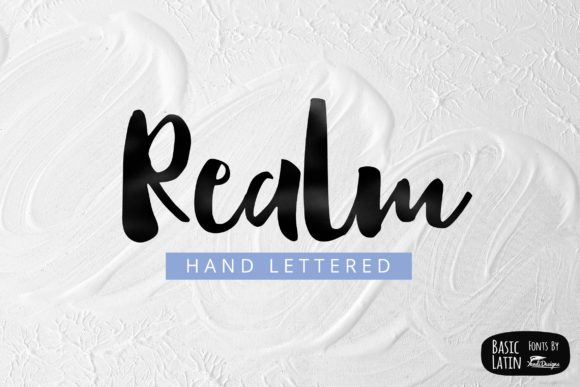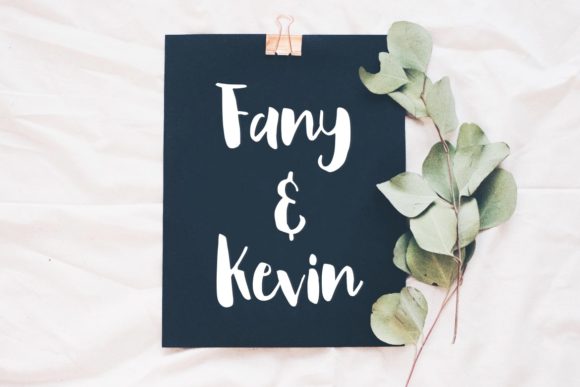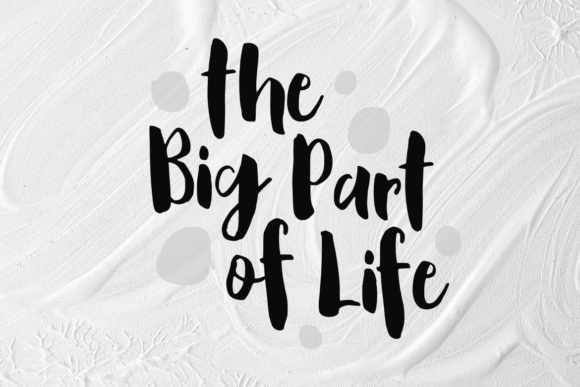
Realm Font
About Realm Font
Realm is a bouncy handwritten brush font perfect for projects such as logos, book covers, t-shirt designs and much more.
Make your next design stand out with this striking font.